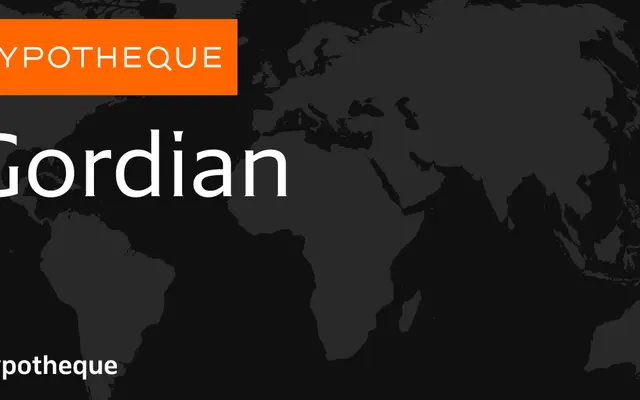
Gordian specimen from Typotheque
A text sans from Typotheque organised as a system, with four weights, matching italics, and a Kapitalen subfamily built around small capitals with directional and circular ornamental variants.
The family runs across Light, Regular, Medium and Bold, each with an italic, and extends into Gordian Kapitalen, which introduces small-capital styles alongside a set of positional and circular mark variants labelled NE, SE, SW, NW, Circle and Random. Named city editions suggest region-specific or language-specific variants across the weight range. The system is structured for extended text use where consistent weight progression and auxiliary glyph support matter.
The page content and naming conventions suggest a text-oriented humanist sans with multiple weights and italics, organised as a system with a Kapitalen (small caps) subfamily and named city variants.